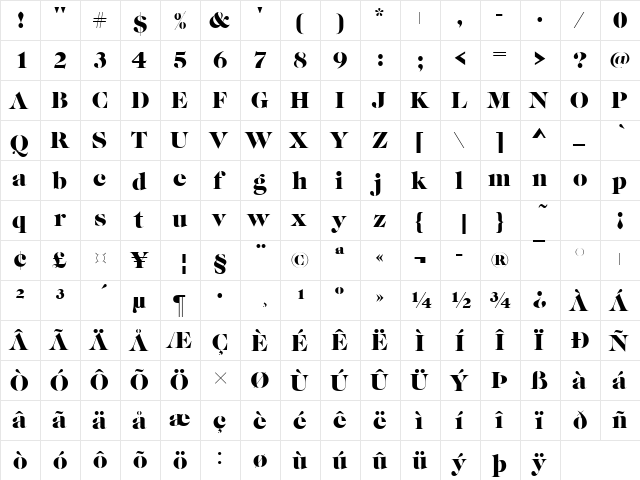
Caslon Becker Graphique Regular
Design Context for Caslon Becker Graphique Typeface
Caslon Becker Graphique offers clean, dependable letterforms without strong stylistic allegiance, making it a practical choice for designers who need flexibility.